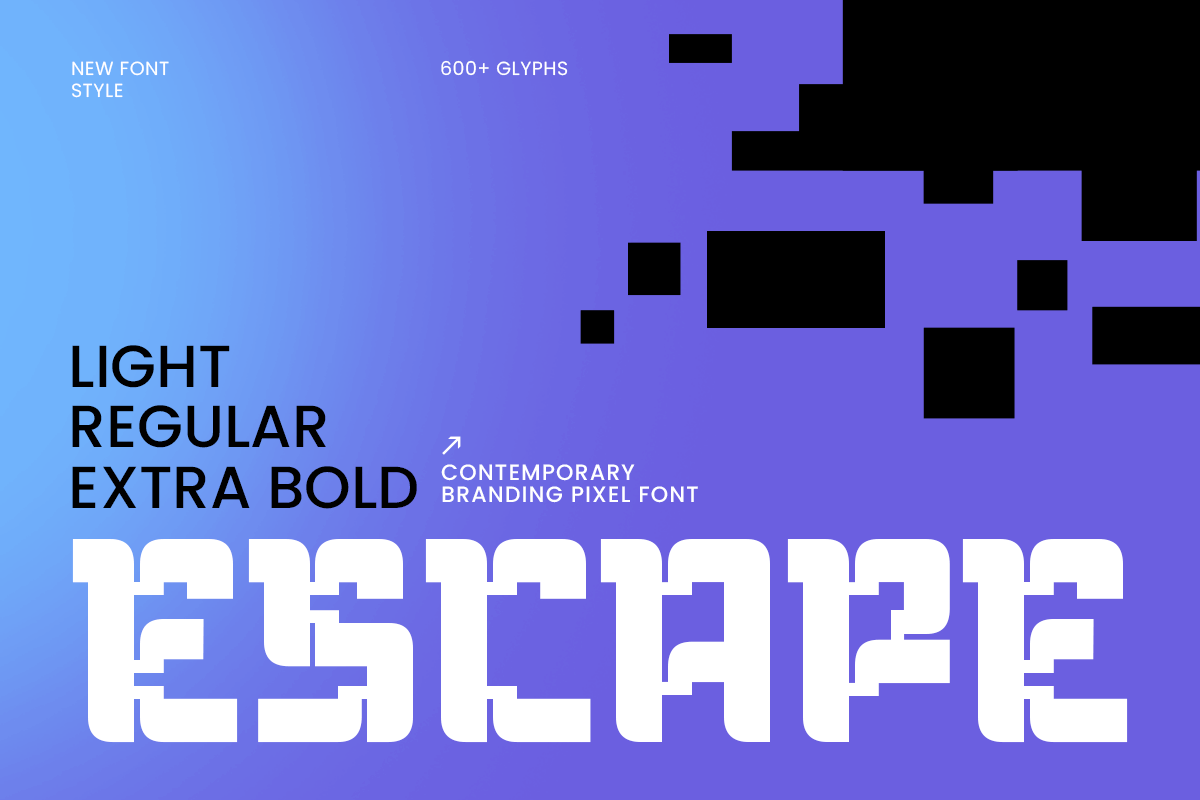
Escape
-Contemporary Branding Pixel Font Family
Escape - Contemporary Branding Pixel Font Family
ESCAPE is a contemporary branding pixel font family designed for digital, tech, and modern creative projects. Ideal for logos, branding, websites, posters, and user interfaces, it combines retro pixel aesthetics with a clean, contemporary style.
With precise geometric forms and excellent readability, ESCAPE ensures a professional and modern look for both print and digital media, making it perfect for tech brands and creative projects.
ESCAPE – Contemporary Branding Pixel Font Family Features
• Modern pixel-style character set
• Perfect for branding, digital products, and display designs
• OpenType features for extra versatility